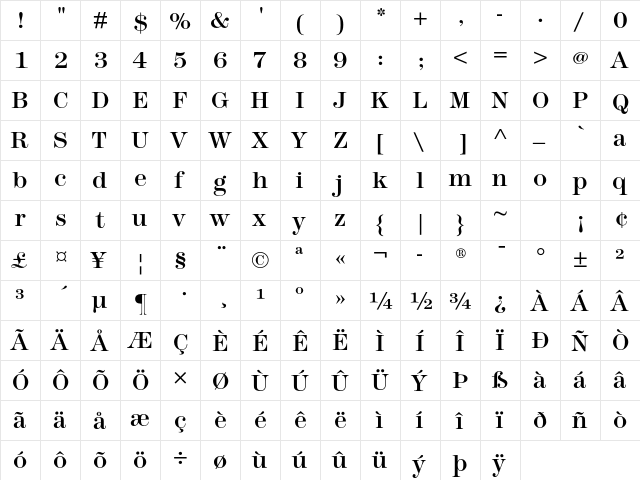
Modern TwoSxtn ITC Std Medium
| Foundry | International Typeface Corporation |
| Designer | Edward Benguiat |
Design Context for Modern TwoSxtn ITC Std Typeface
Modern TwoSxtn ITC Std is a composed and adaptable typeface that performs quietly and consistently across a wide range of design contexts.